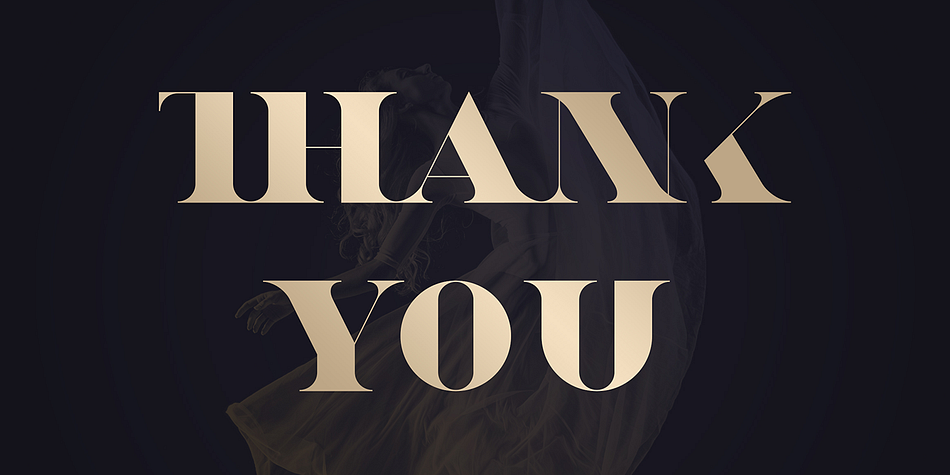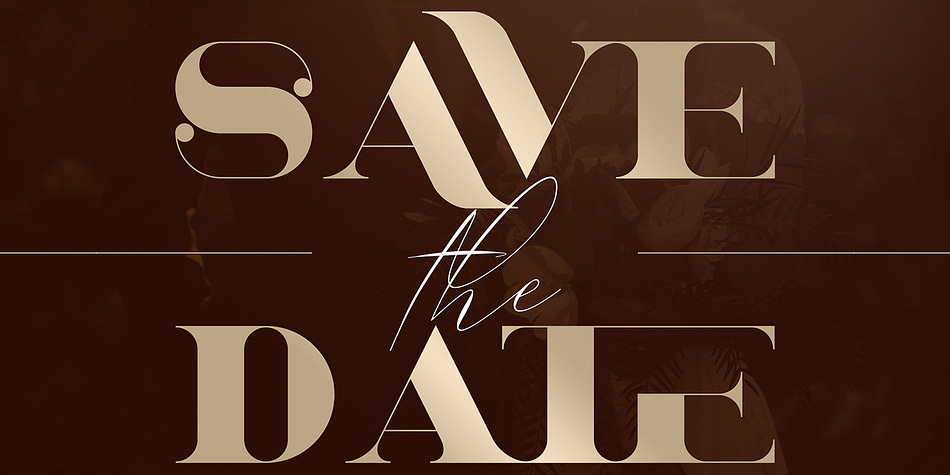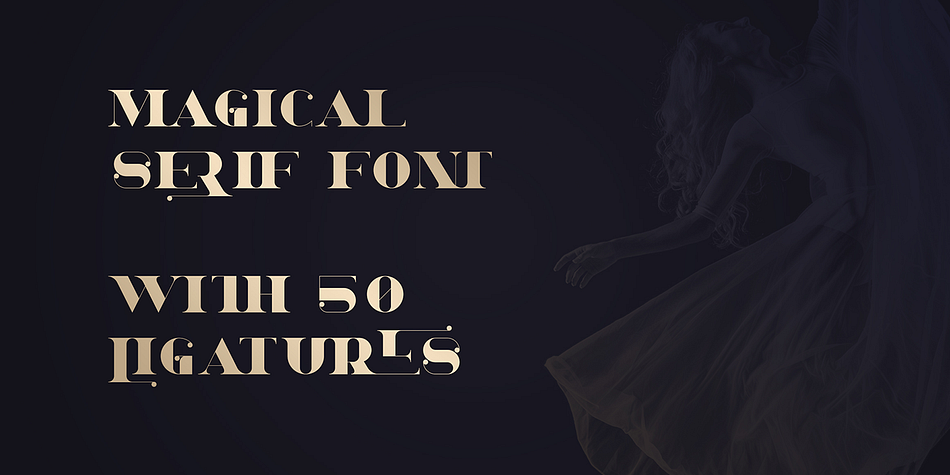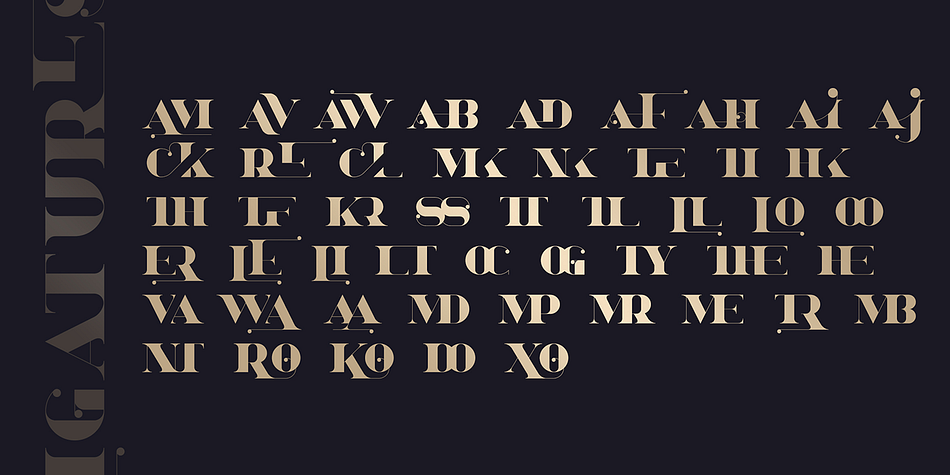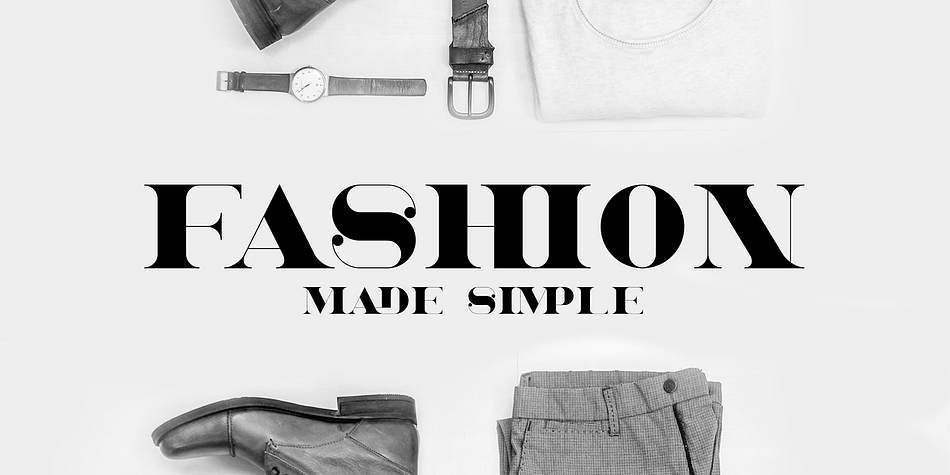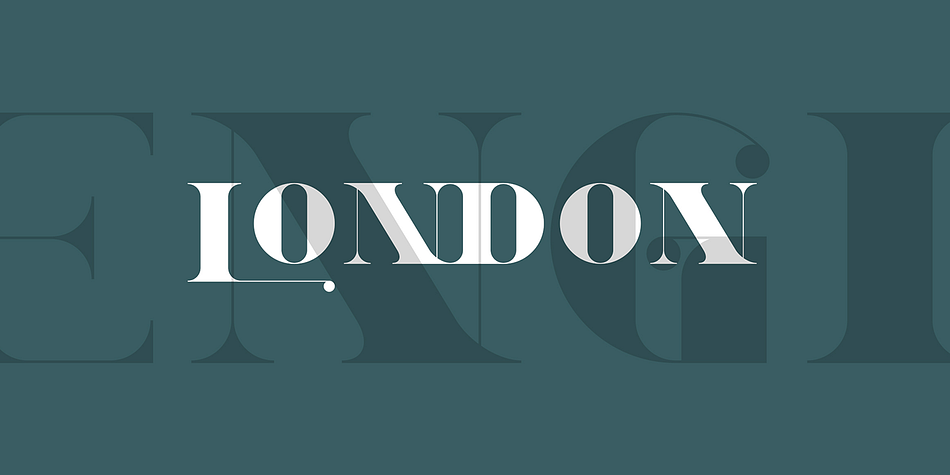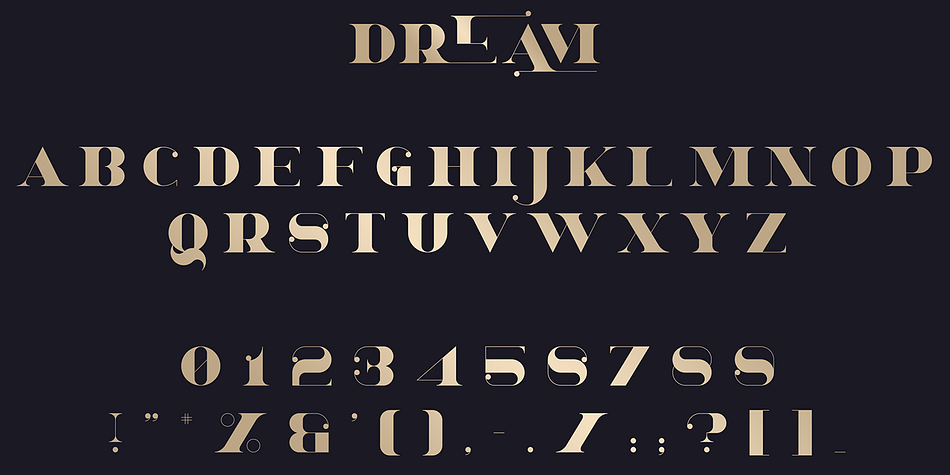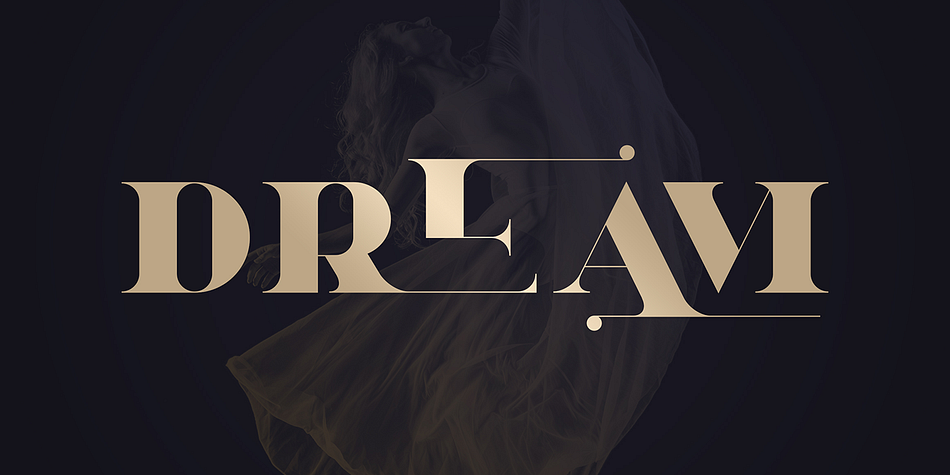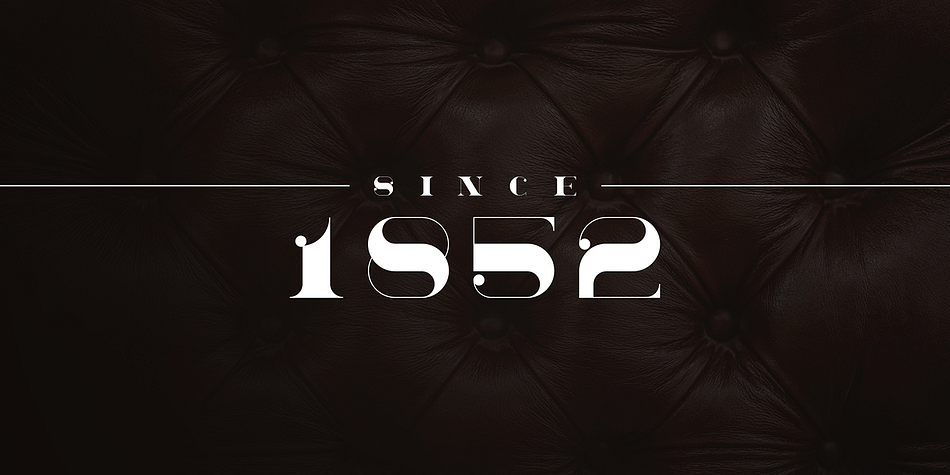
DREAM
Dream is a display serif font published by VPcreativeshop.
Introducing Dream serif font
Dream is elegant, clean font with 50 ligatures and multilingual support.
It’s a very versatile font that works great in large and small sizes.
Dream is perfect for branding projects, home-ware designs, product packaging, magazine headers - or simply as a stylish text overlay to any background image.
Uppercase,lowercase, numeral,punctuation & Symbol
Clean
Multilingual support
50 Ligatures